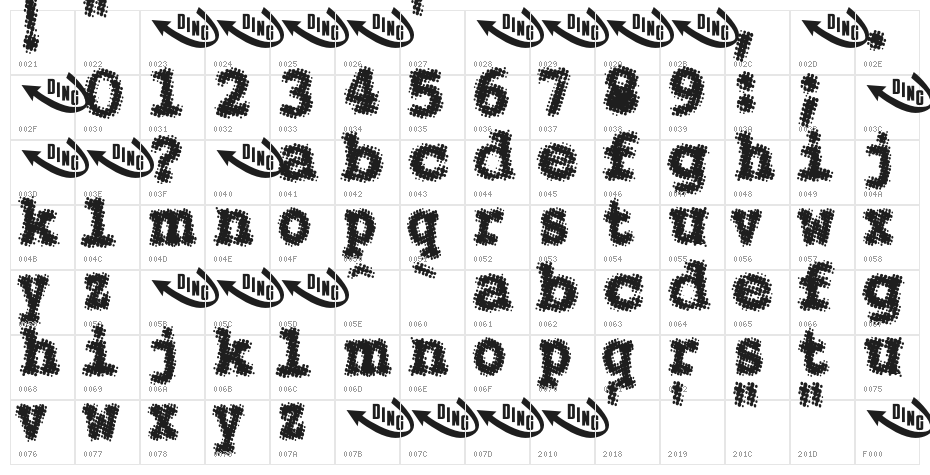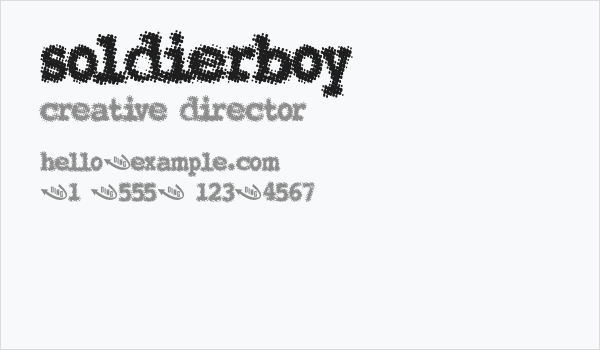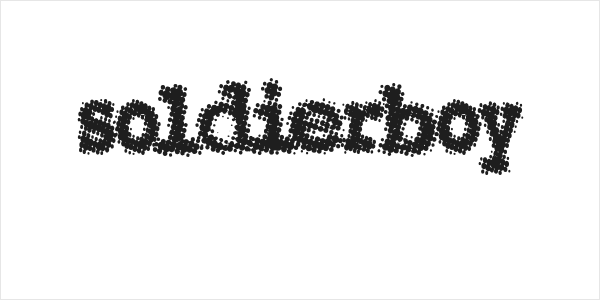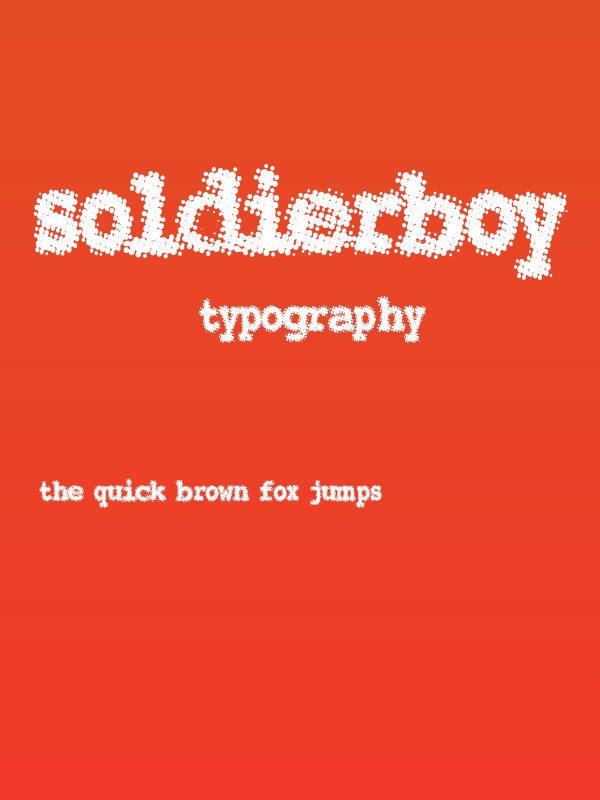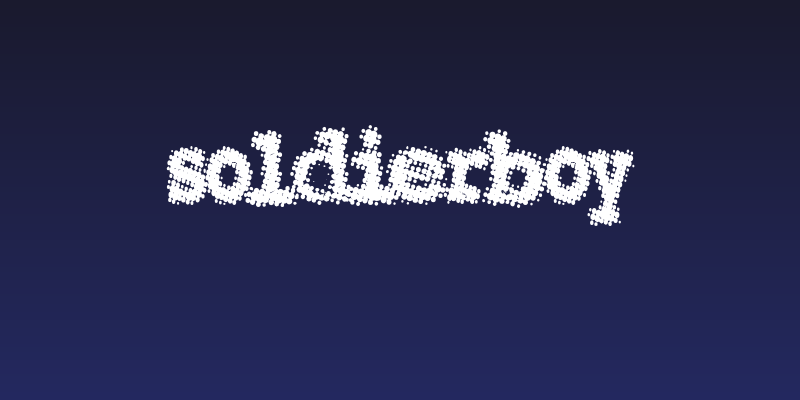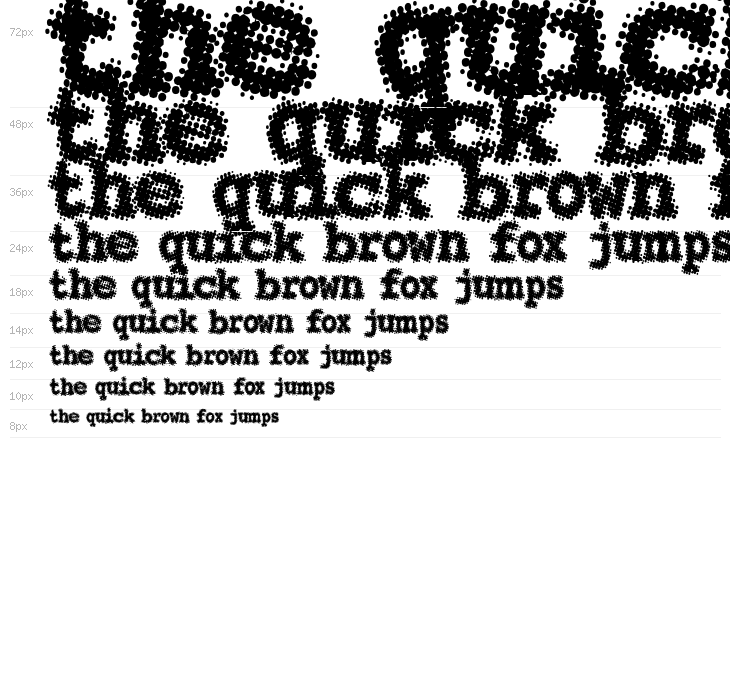
Soldierboy Font
Soldierboy Description
This font features a distinctive dotted pattern that forms each character, creating a textured and dynamic appearance. The letters are bold and rounded, with a playful yet structured design. The dots are evenly distributed, giving the font a cohesive look. This style is eye-catching and unique, making it suitable for creative and informal projects. The numbers and special characters follow the same dotted pattern, ensuring consistency across all elements. The font's playful nature is balanced by its clear readability, making it versatile for various design needs.
| Overall Style | Playful, Creative |
| Proposed Projects | Ideal for posters, children's books, playful branding, and creative invitations. |